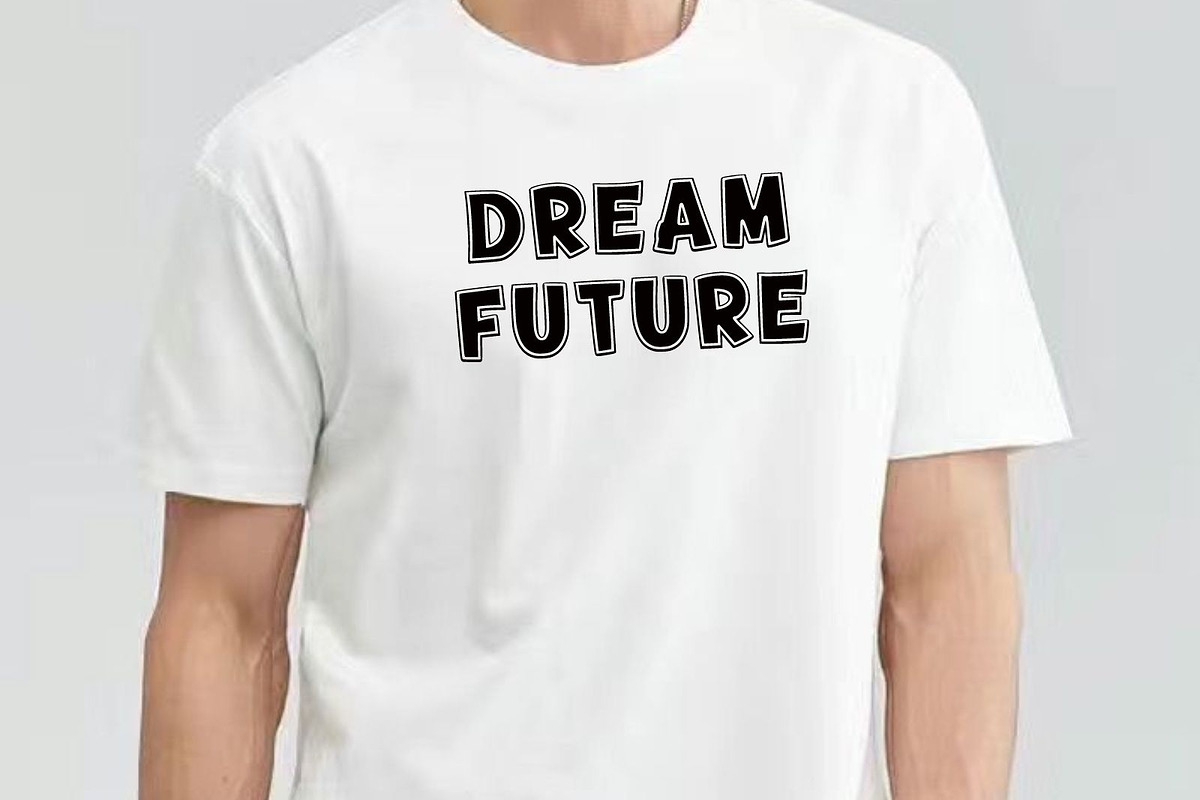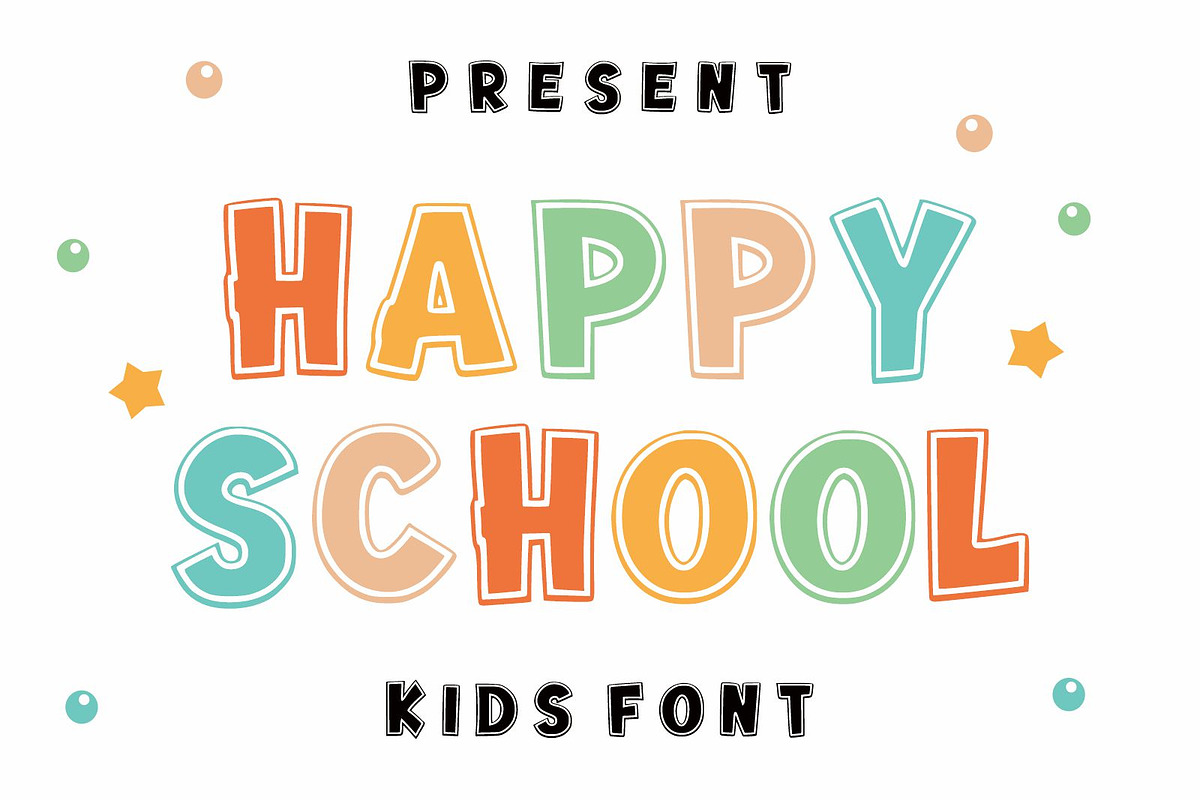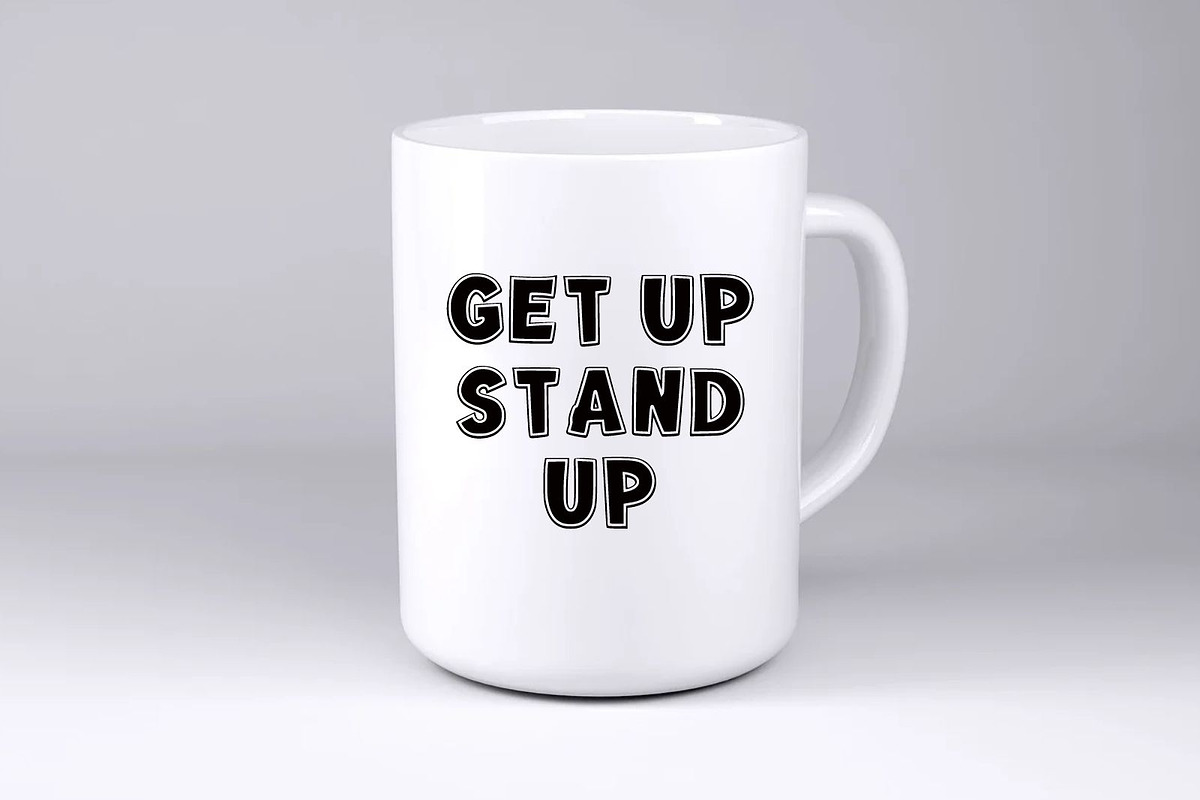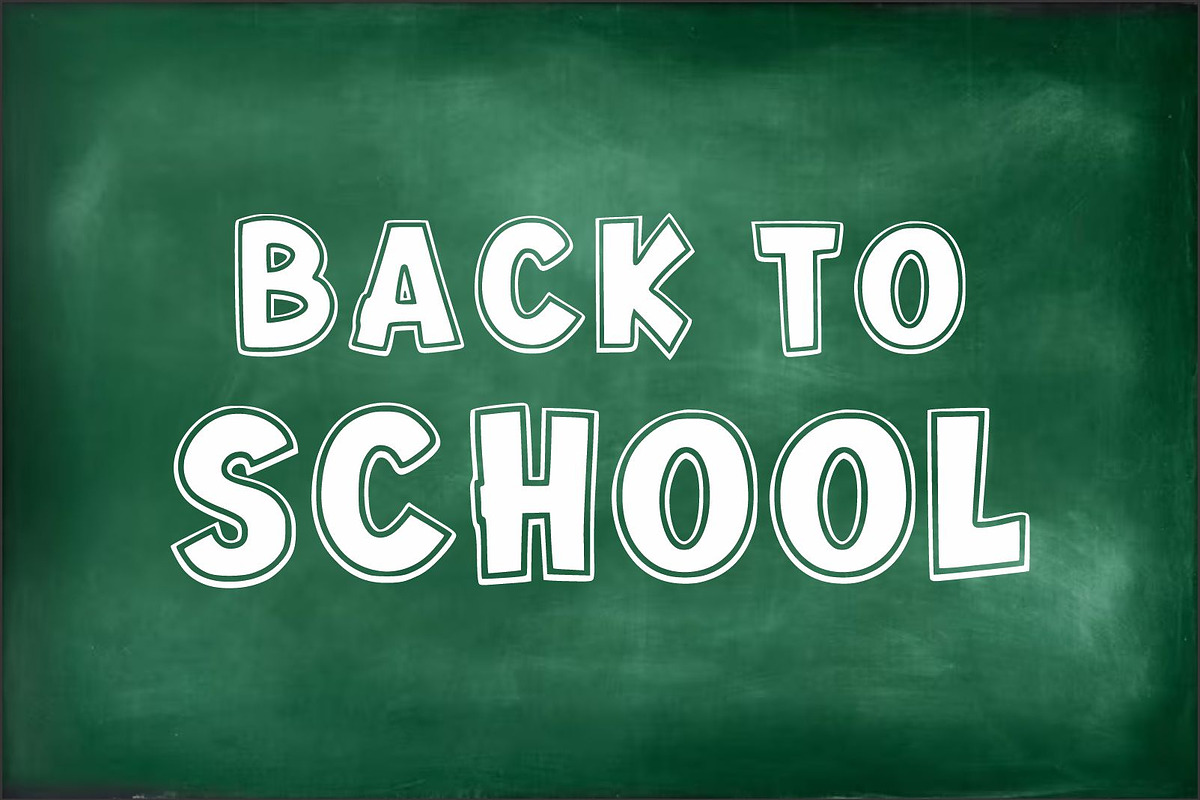
Happy School
Happy School is a fun type display font, reminiscent of colorful fonts. It evokes a sense of nostalgia, perfect for back-to-school themes, birthday cards, children’s lettering, chalk-inspired designs, holiday greetings like Thanksgiving, craft ventures, kid-centered greeting cards, decorations, and craft projects.